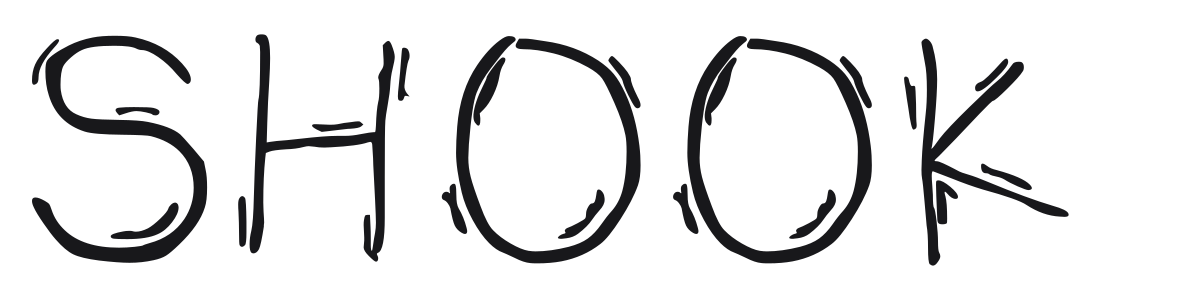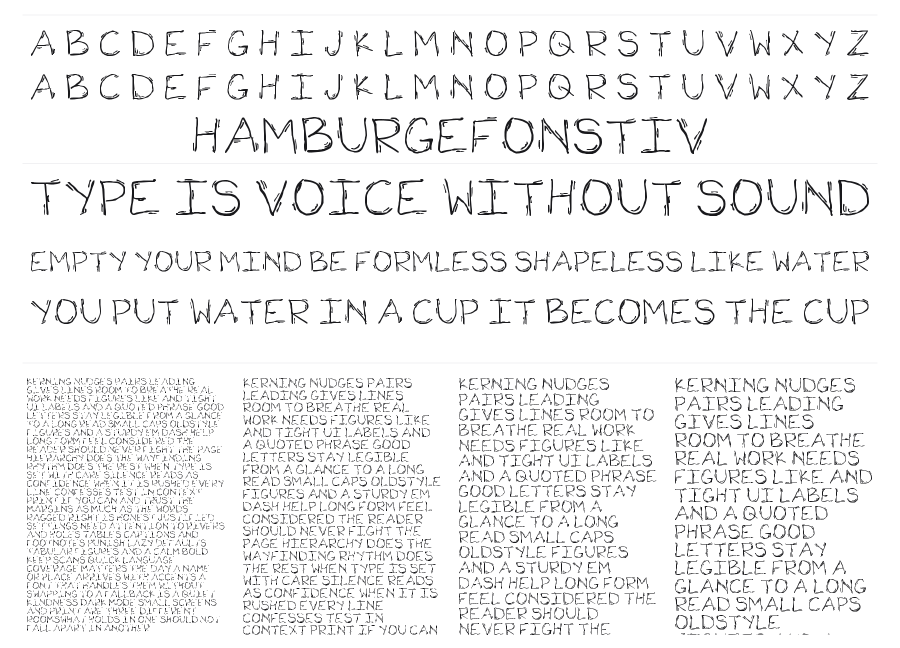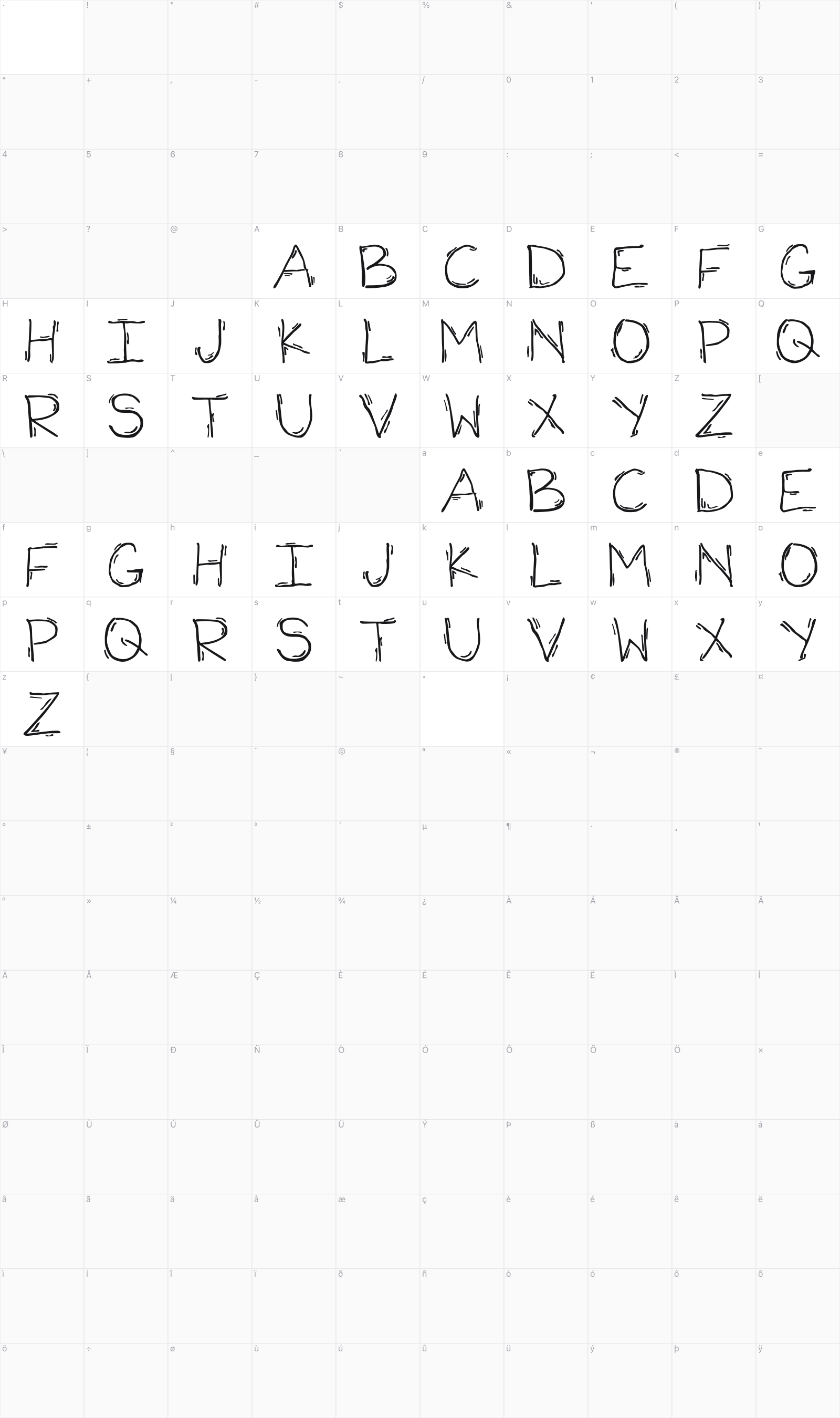
Shook
by Sierra Carelock
Shook is a hand-drawn distressed sans with rough, splintered strokes that look like they were scratched out quickly with a dry pen. Each character carries its own imperfections, giving text a raw, animated energy. Good for headlines and branding that needs to feel handmade or rebellious.